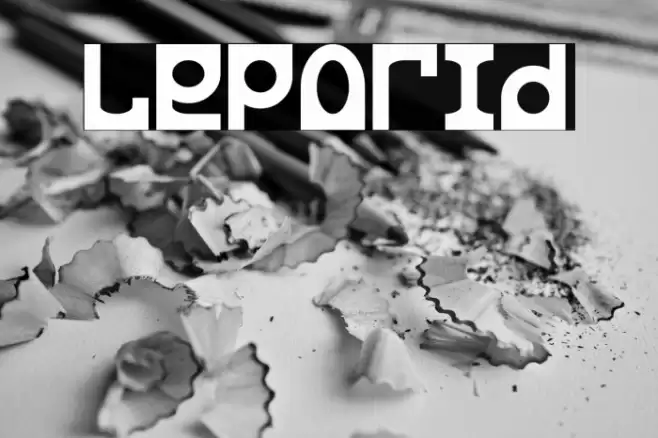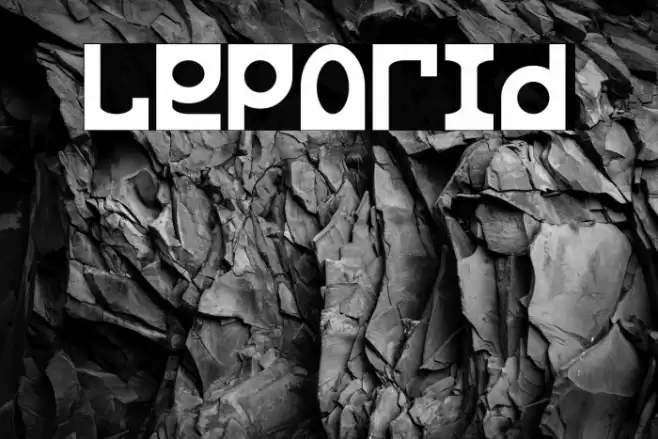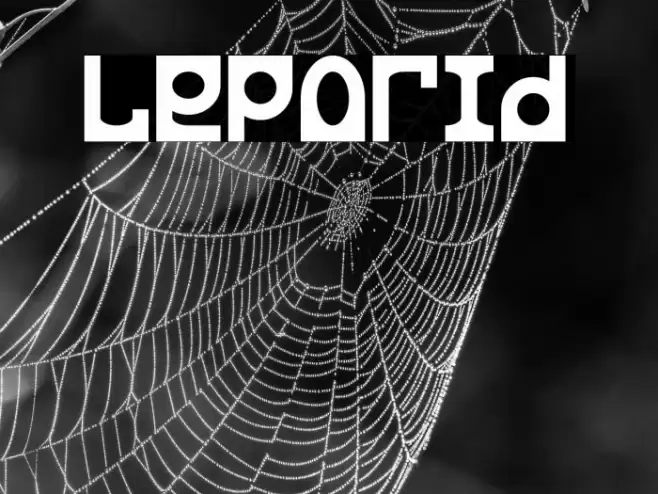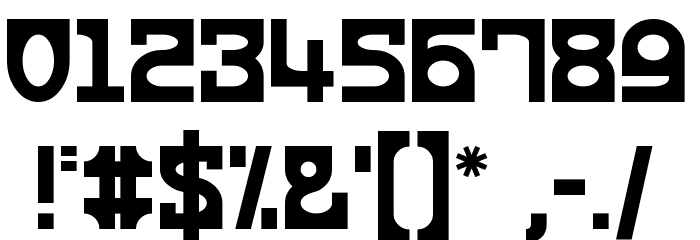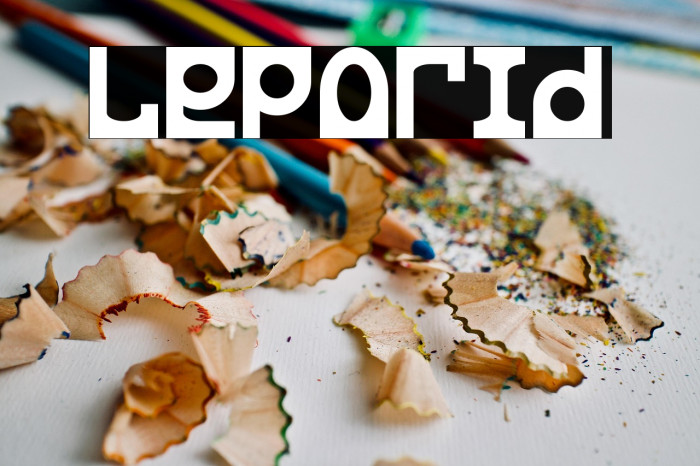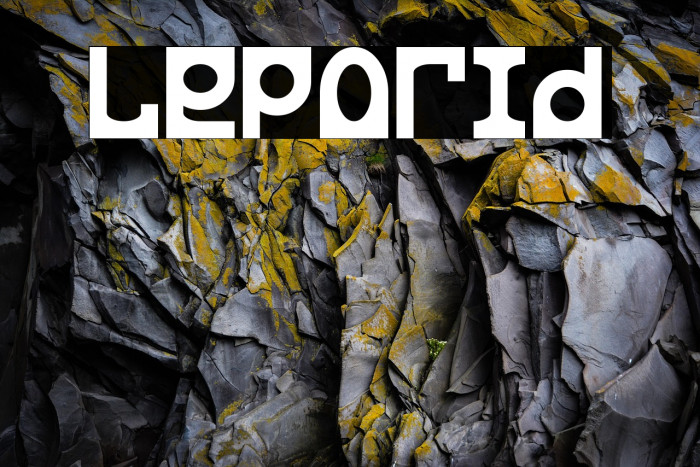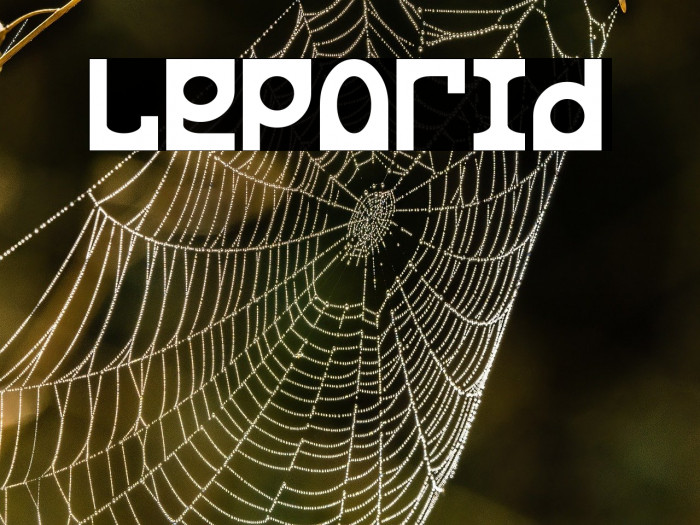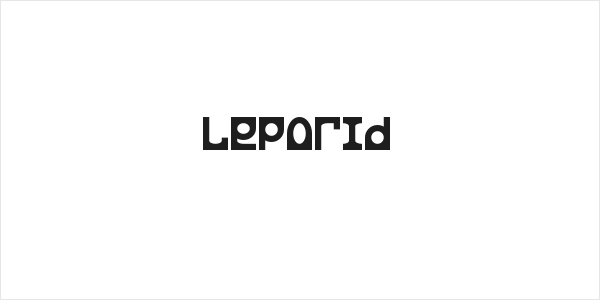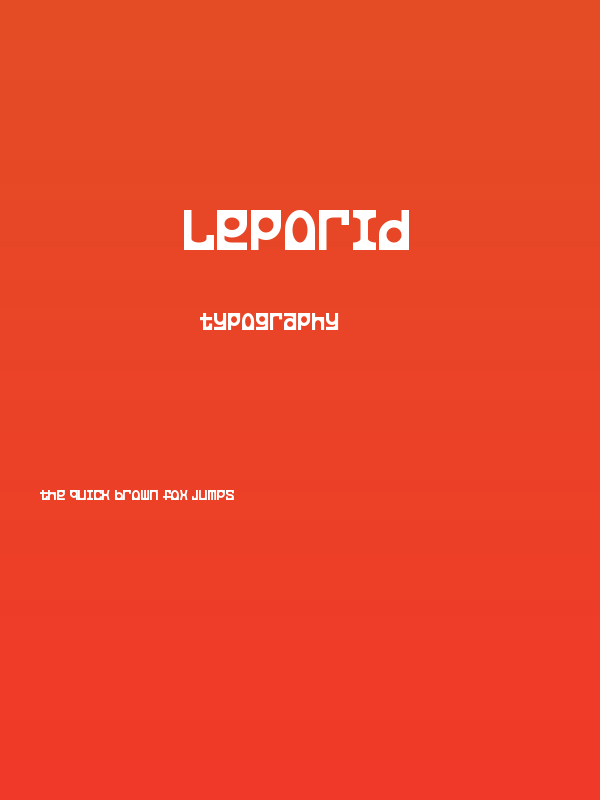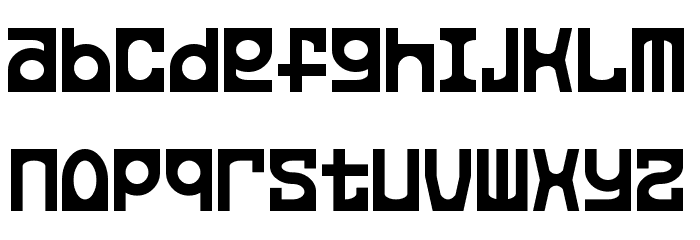
Leporid Font
Leporid Description
This font features a bold and geometric design with a strong emphasis on angular shapes and straight lines. The characters are uniformly structured, giving a cohesive and modern appearance. The uppercase and lowercase letters share similar design elements, maintaining consistency throughout. The numerals and special characters are crafted with the same boldness and geometric precision, making them stand out. This font's unique style is both eye-catching and functional, suitable for various creative applications.
A bold, geometric font with angular shapes and consistent design from Uncategorized fonts.